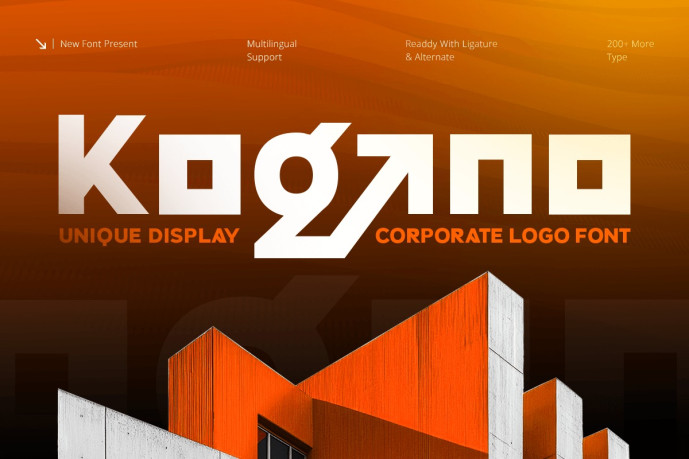
Kogano – Unique Corporate Logo Font
Kogano – Unique Display Corporate Logo Font is a modern corporate display font designed for professional logo creation, business branding, company identities, and contemporary visual communication. Inspired by modern corporate aesthetics and distinctive branding trends, Kogano combines unique character with clean structure to help businesses build memorable and recognizable brand identities.
Featuring distinctive letterforms, balanced proportions, and a refined display style, Kogano delivers a professional yet creative appearance across logos, branding systems, marketing materials, and digital platforms. Its unique personality allows brands to stand out while maintaining the credibility and clarity expected from modern corporate typography.
Whether you’re launching a startup, developing a corporate identity, creating a company logo, or designing professional brand assets, Kogano provides the flexibility and originality needed to elevate your visual identity.
Kogano Font Features
Character Set: Uppercase, lowercase, numbers, symbols, and punctuation
Unique display letterforms optimized for logo design and corporate branding
OpenType features ready to enhance your design needs